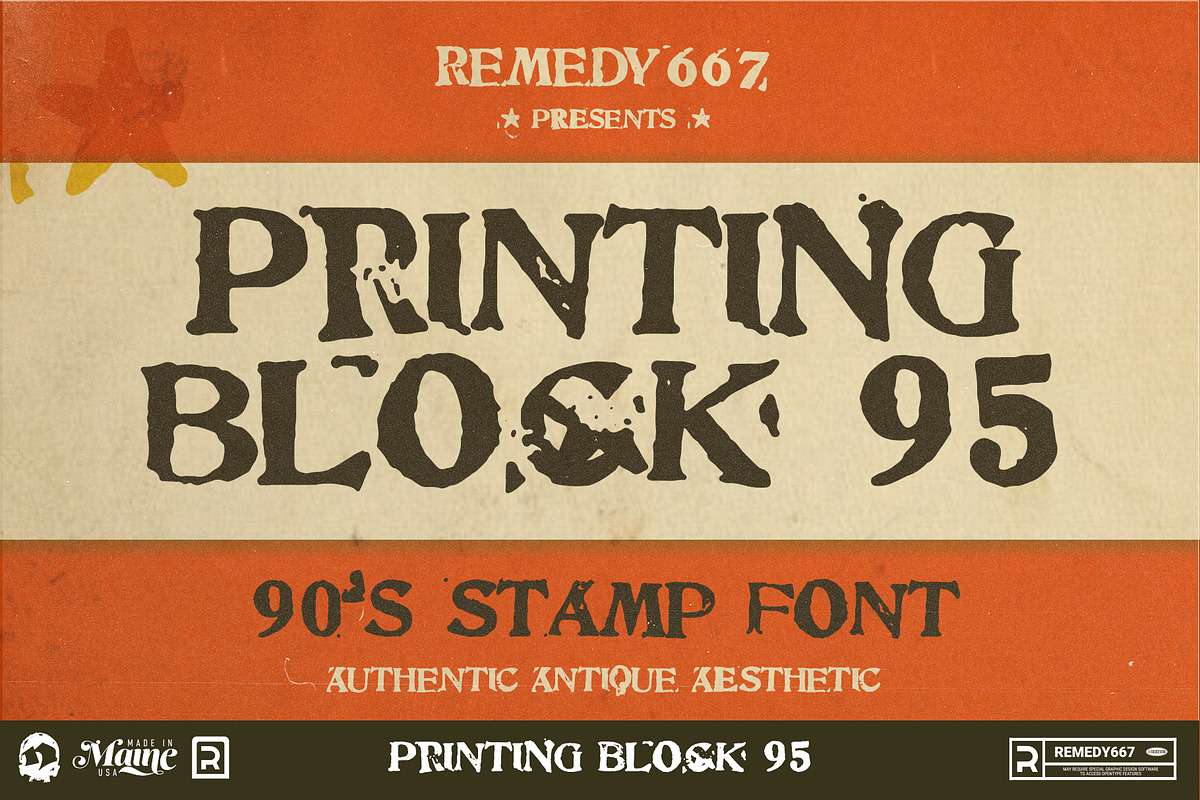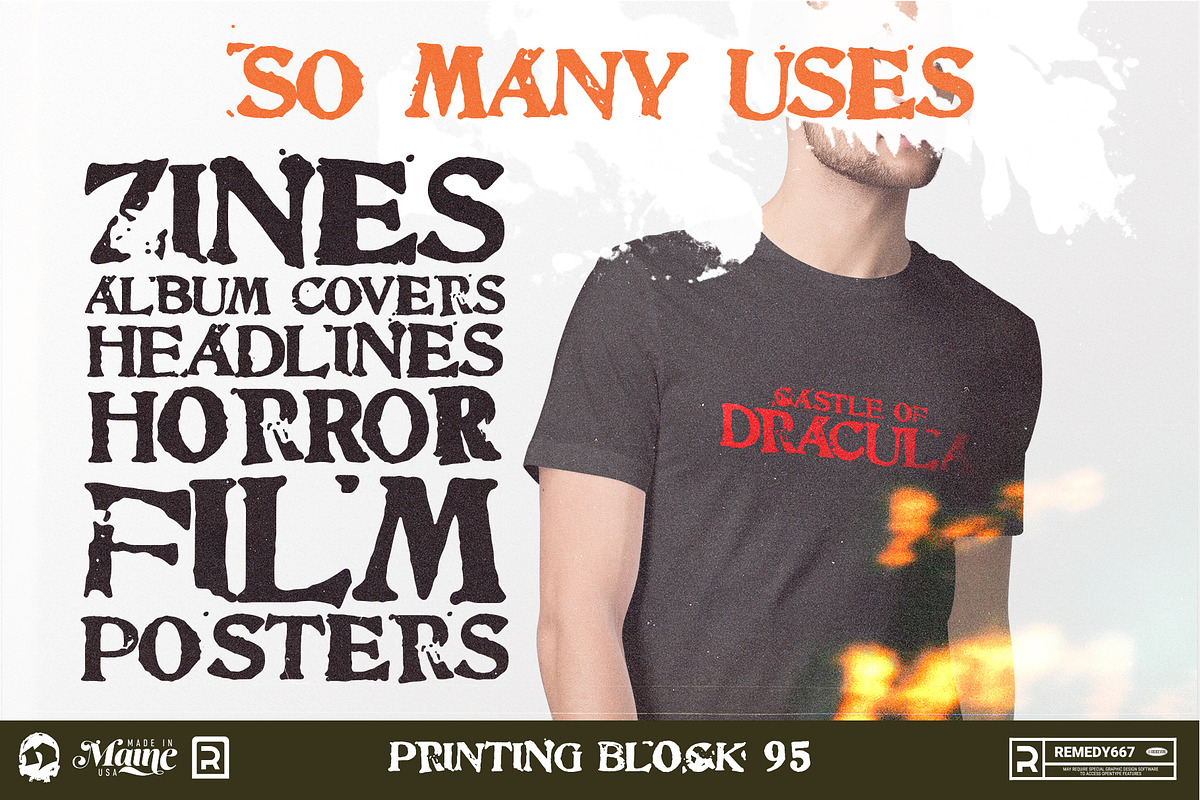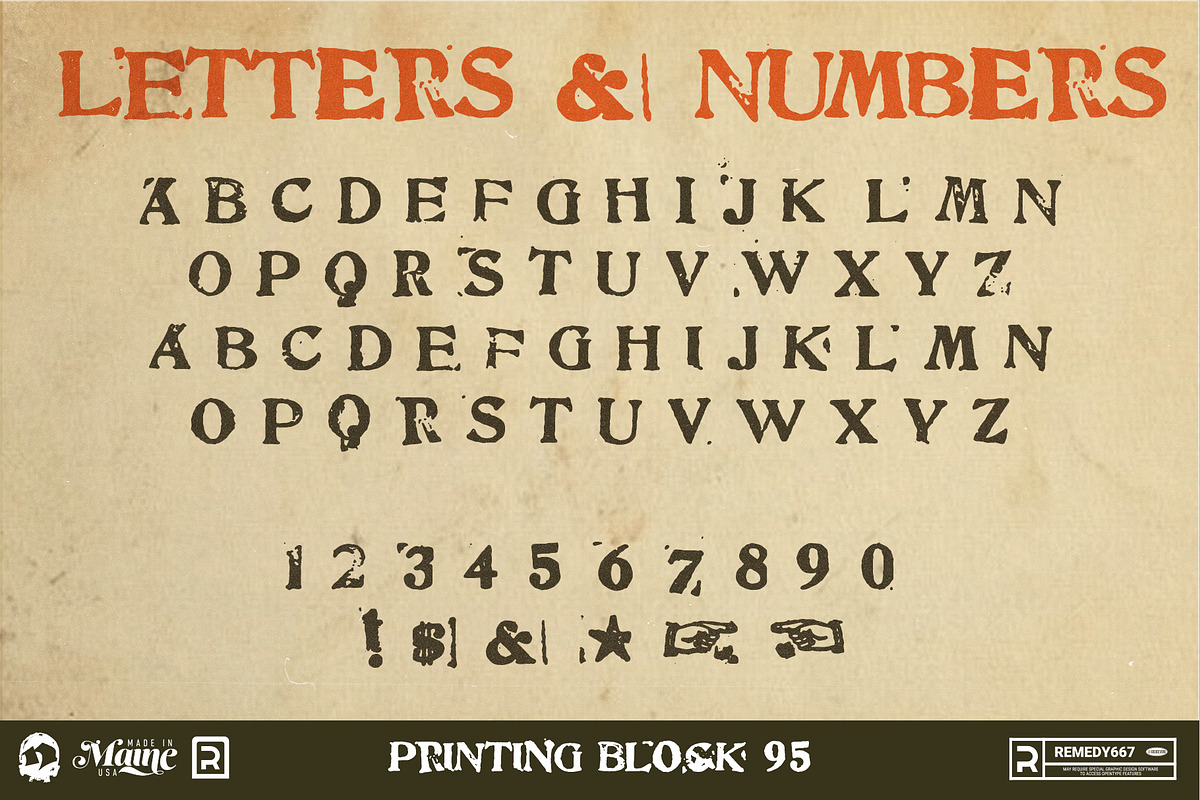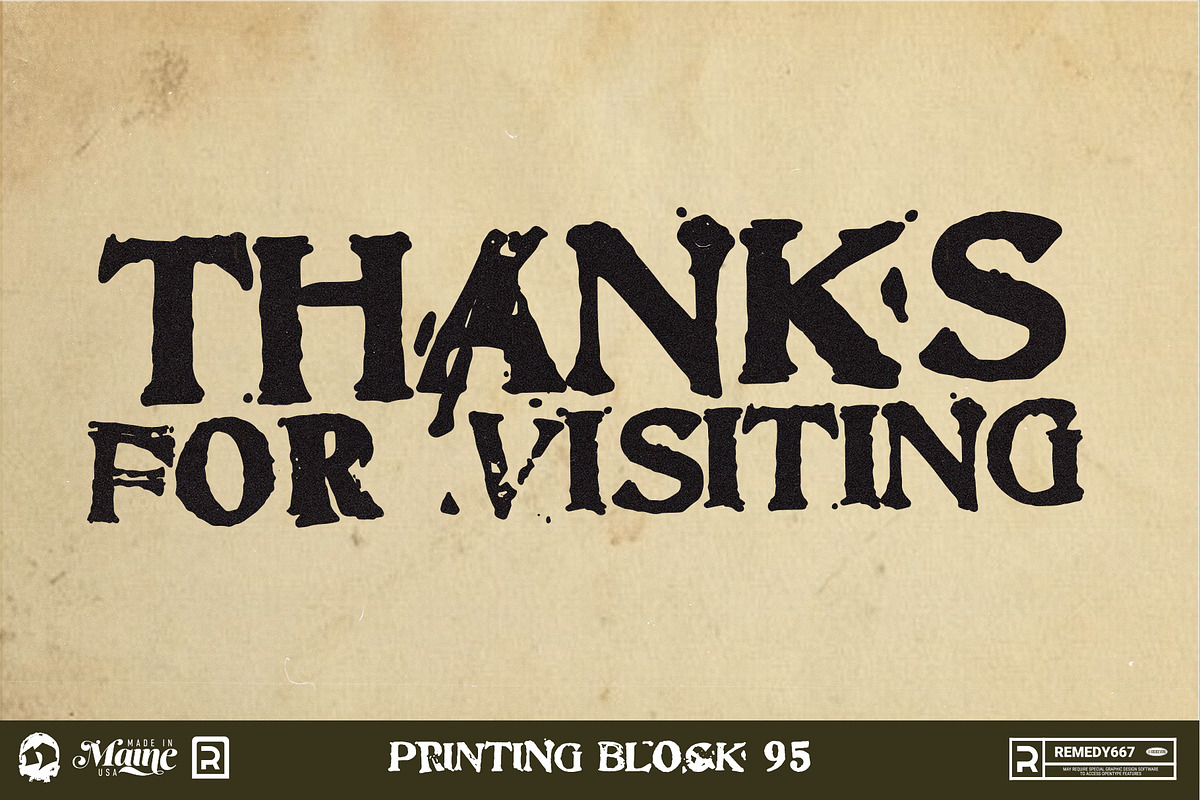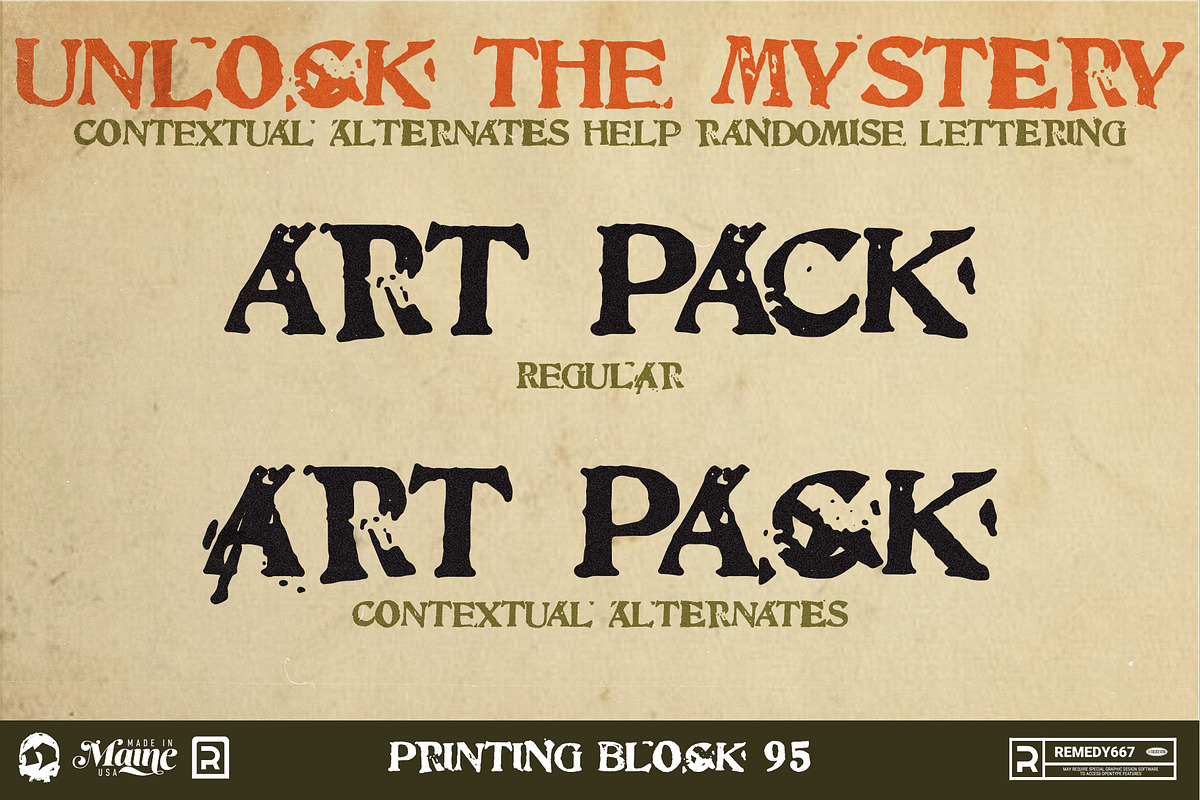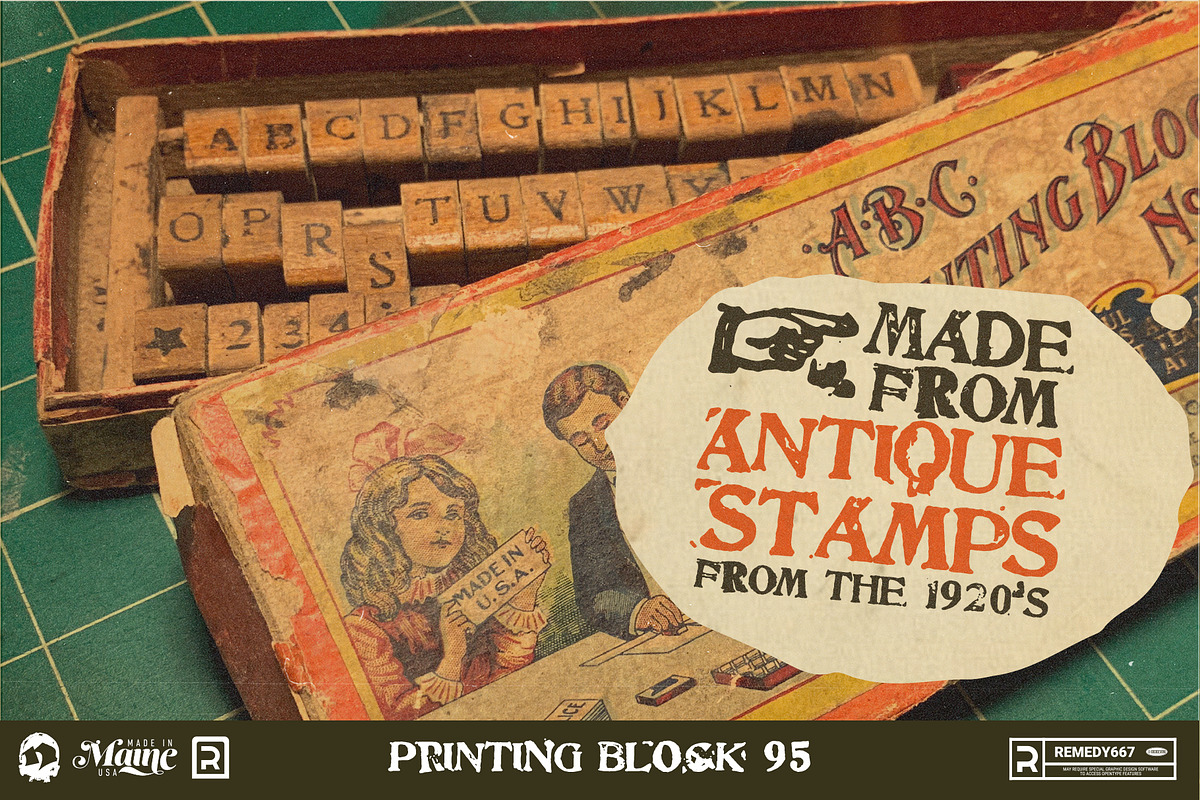
Printing Block 95 - 90's Stamp Font
Printing Block 95 is made from authentic 1920s stamps, and mimics the style and aesthetic of graphic design trends of the 1990s. It has a wide variety of characters, and uses opentype features to create randomized lettering that feels less like a font Then traditional display faces.
Printing Block 95 is good for all kind of stuff, including: zines, apparel, album covers, 90s influence, retro design, titles, gig posters… this is a new kind of stamp font, rich with variables.
Printing Block 95 Only Contains Letters & Numbers